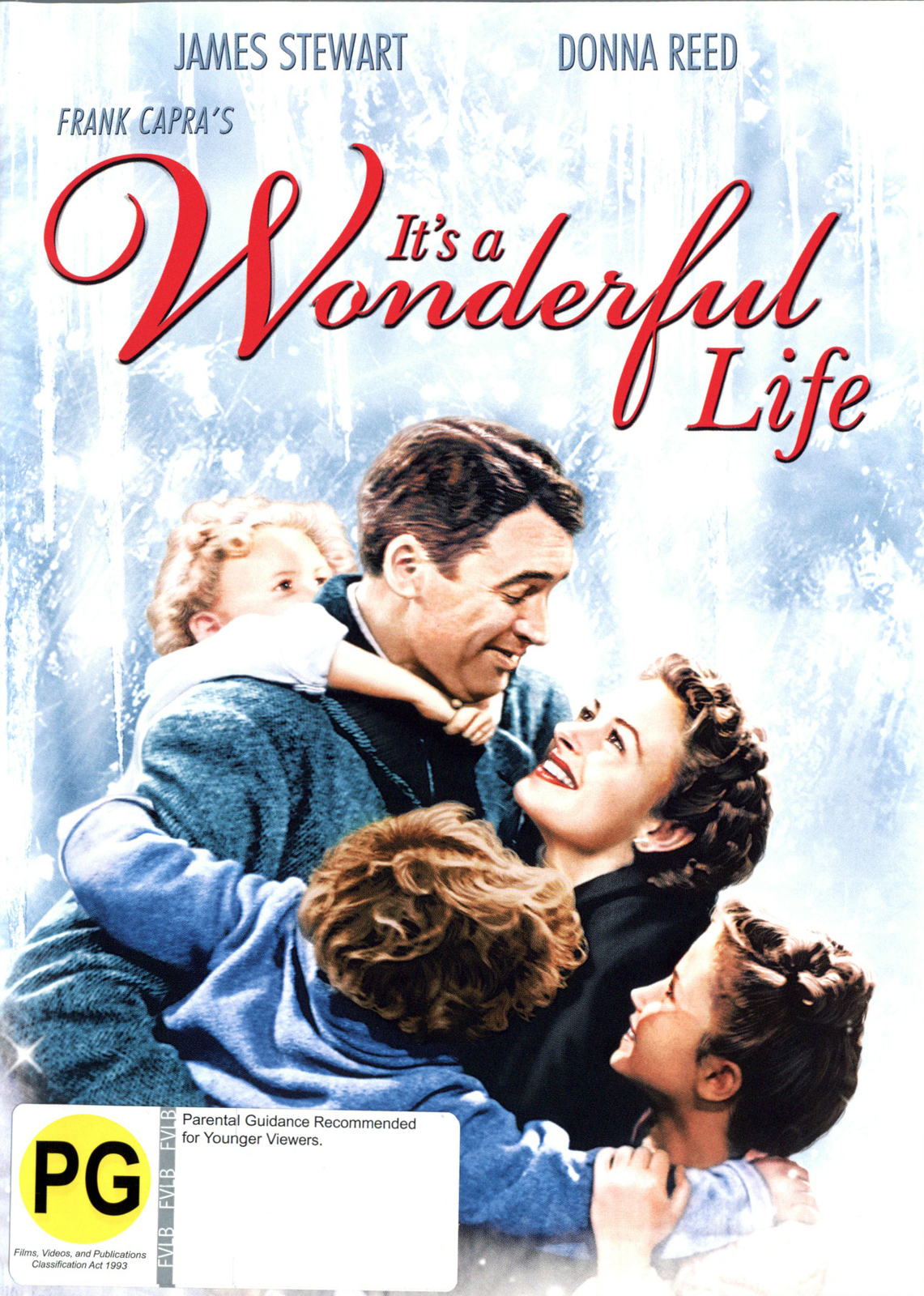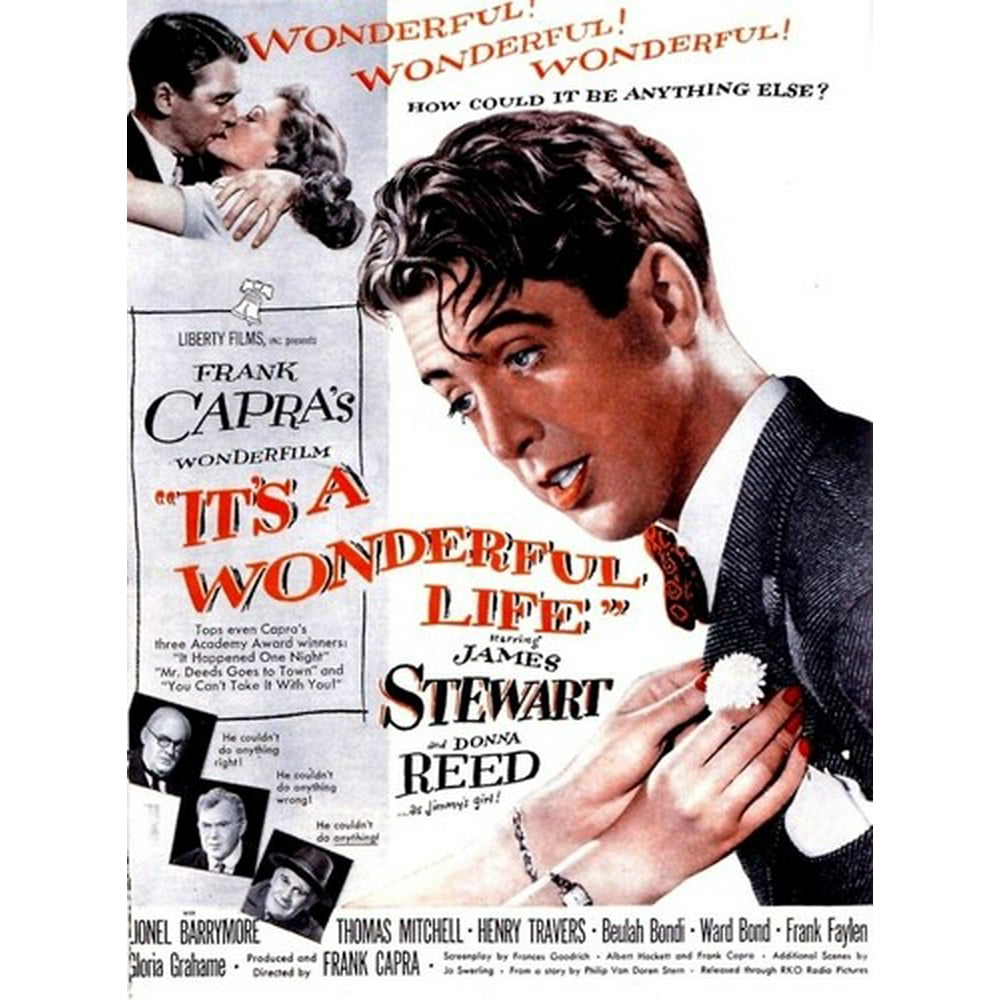
It's A Wonderful Life Font . Download free fonts or create text graphics with online tools. Best one might be beatnik barbie don
Web no digital match but a few digital fonts have the bouncy flavor. Collection of fonts for it's a wonderful life font ideas. Web if your looking for similar to the frank capra et al (since an exact match is unlikely) you could try.supposedly.
It’s a wonderful life font. Web if your looking for similar to the frank capra et al (since an exact match is unlikely) you could try.supposedly. Web no digital match but a few digital fonts have the bouncy flavor. How to place letters is much smarter than the font style.
It's A Wonderful Life Font - Web no digital match but a few digital fonts have the bouncy flavor. Best one might be beatnik barbie don Web create graphics with the font style of the classic christmas movie title, it's a wonderful life. Web download it’s a wonderful life font & typefaces for free. Download free fonts or create text graphics with online tools.
It's A Wonderful Life Font - Best one might be beatnik barbie don Web lombard by mario arturo. Web it's a wonderful life! Web when we see a string of words that are beautifully put together and play like music, they are amazing fonts just like the “it’s a wonderful life” movie font. Download free fonts like sexsmith or.
It's A Wonderful Life Font - Download free fonts or create text graphics with online tools. Web create graphics with the font style of the classic christmas movie title, it's a wonderful life. It’s a wonderful life font. Web it's a wonderful life! It’s a wonderful life is a 1946.
It's A Wonderful Life Font - It’s a wonderful life font. Web if your looking for similar to the frank capra et al (since an exact match is unlikely) you could try.supposedly. Download free fonts or create text graphics with online tools. Web no digital match but a few digital fonts have the bouncy flavor. How to place letters is much smarter than the font style.
It's A Wonderful Life Font - Web it's a wonderful life! Web if your looking for similar to the frank capra et al (since an exact match is unlikely) you could try.supposedly. Download free fonts like sexsmith or. Web create graphics with the font style of the classic christmas movie title, it's a wonderful life. Download free fonts or create text graphics with online tools.
It's A Wonderful Life Font - Web if your looking for similar to the frank capra et al (since an exact match is unlikely) you could try.supposedly. Web lombard by mario arturo. It’s a wonderful life is a 1946. Web it's a wonderful life! Web when we see a string of words that are beautifully put together and play like music, they are amazing fonts just.
It's A Wonderful Life Font - Web lombard by mario arturo. It’s a wonderful life is a 1946. Collection of fonts for it's a wonderful life font ideas. Download free fonts or create text graphics with online tools. How to place letters is much smarter than the font style.
It's A Wonderful Life Font - How to place letters is much smarter than the font style. Best one might be beatnik barbie don Web when we see a string of words that are beautifully put together and play like music, they are amazing fonts just like the “it’s a wonderful life” movie font. Web it's a wonderful life! It’s a wonderful life is a 1946.
It's A Wonderful Life Font - Web when we see a string of words that are beautifully put together and play like music, they are amazing fonts just like the “it’s a wonderful life” movie font. Download free fonts or create text graphics with online tools. Download free fonts like sexsmith or. Web lombard by mario arturo. It’s a wonderful life font.
It's A Wonderful Life Font - Web no digital match but a few digital fonts have the bouncy flavor. Web lombard by mario arturo. It’s a wonderful life font. Collection of fonts for it's a wonderful life font ideas. Download free fonts or create text graphics with online tools.
It's A Wonderful Life Font - Download free fonts like sexsmith or. Collection of fonts for it's a wonderful life font ideas. Web if your looking for similar to the frank capra et al (since an exact match is unlikely) you could try.supposedly. Web find out the closest fonts to the hand lettered title of the classic christmas film it’s a wonderful life. Web when we.
It's A Wonderful Life Font - Collection of fonts for it's a wonderful life font ideas. It’s a wonderful life is a 1946. Web no digital match but a few digital fonts have the bouncy flavor. Best one might be beatnik barbie don Web create graphics with the font style of the classic christmas movie title, it's a wonderful life.
It's A Wonderful Life Font - It’s a wonderful life is a 1946. How to place letters is much smarter than the font style. Web create graphics with the font style of the classic christmas movie title, it's a wonderful life. Web lombard by mario arturo. Web if your looking for similar to the frank capra et al (since an exact match is unlikely) you could.
It's A Wonderful Life Font - Best one might be beatnik barbie don Collection of fonts for it's a wonderful life font ideas. It’s a wonderful life font. Download free fonts like sexsmith or. Web lombard by mario arturo.
It's A Wonderful Life Font - Web if your looking for similar to the frank capra et al (since an exact match is unlikely) you could try.supposedly. Web lombard by mario arturo. Web no digital match but a few digital fonts have the bouncy flavor. Web when we see a string of words that are beautifully put together and play like music, they are amazing fonts.